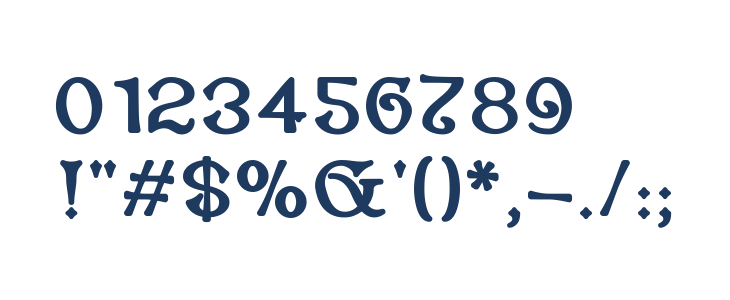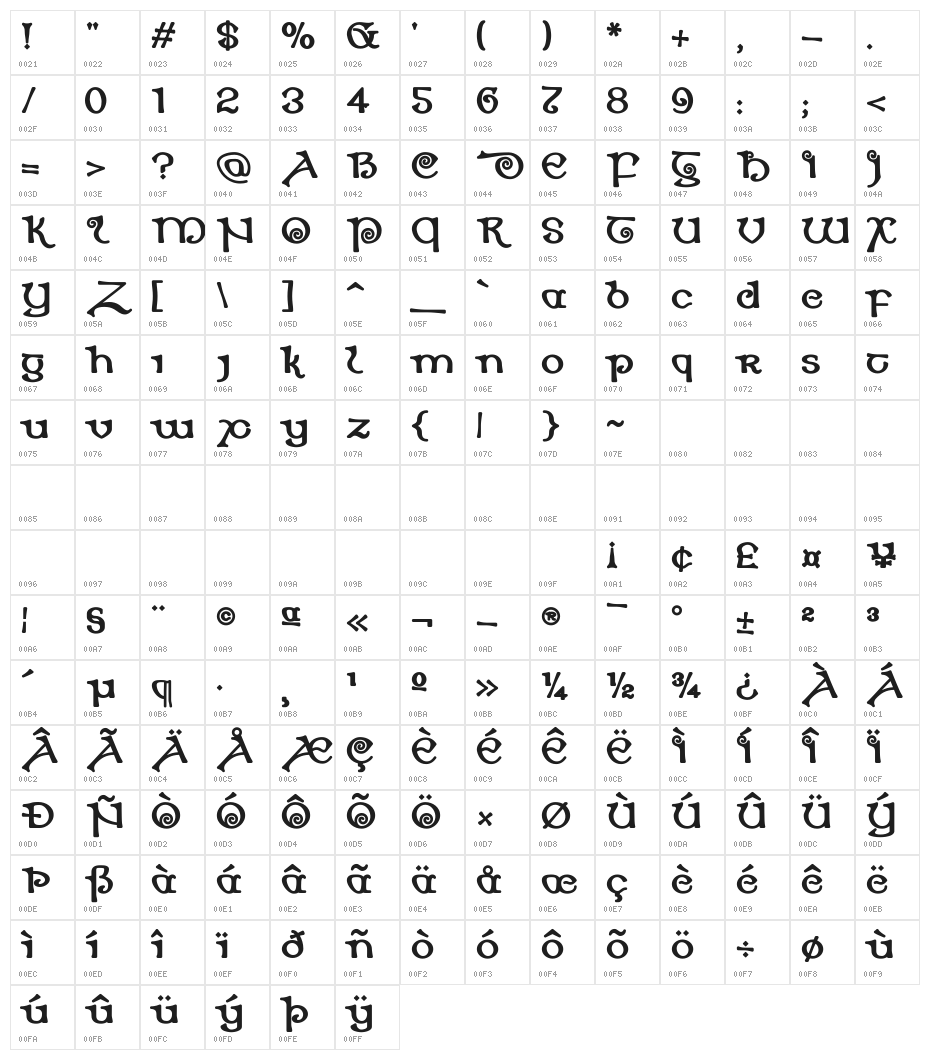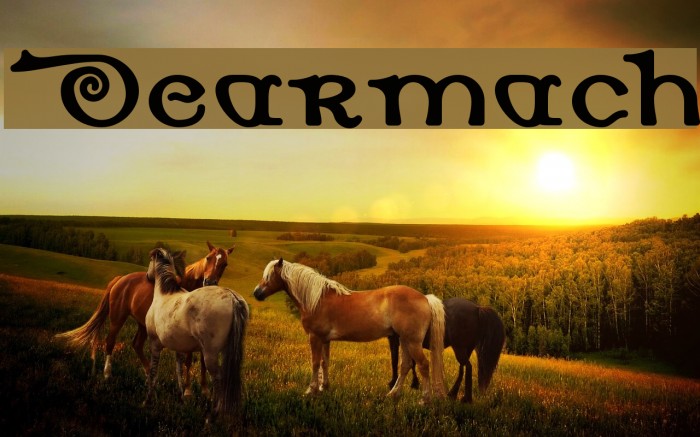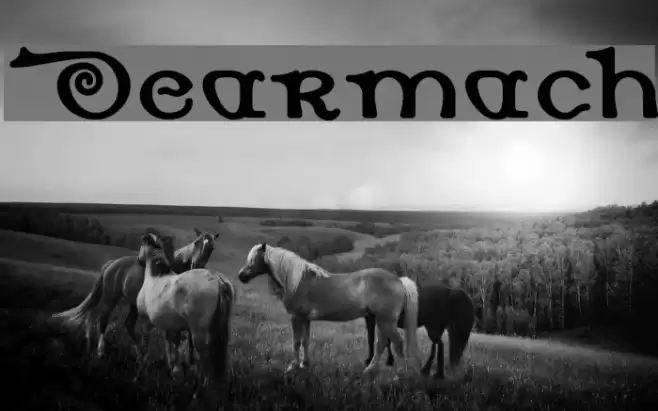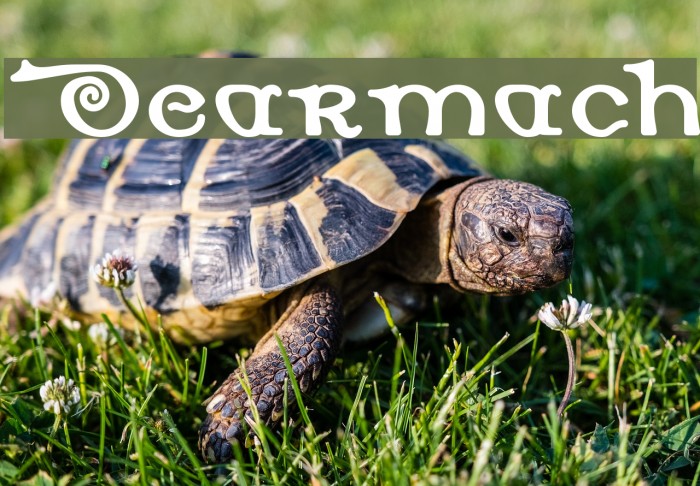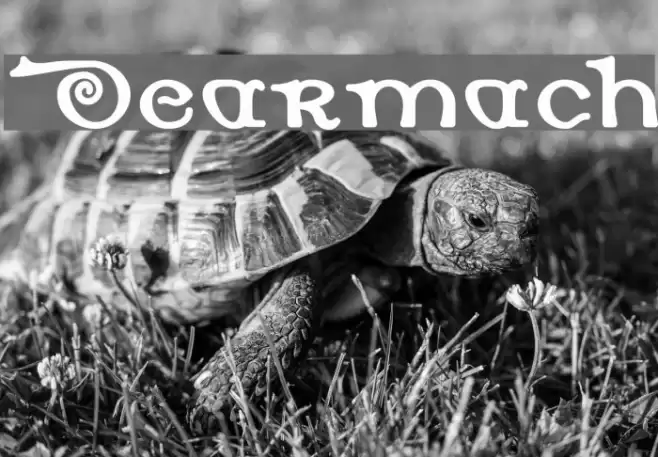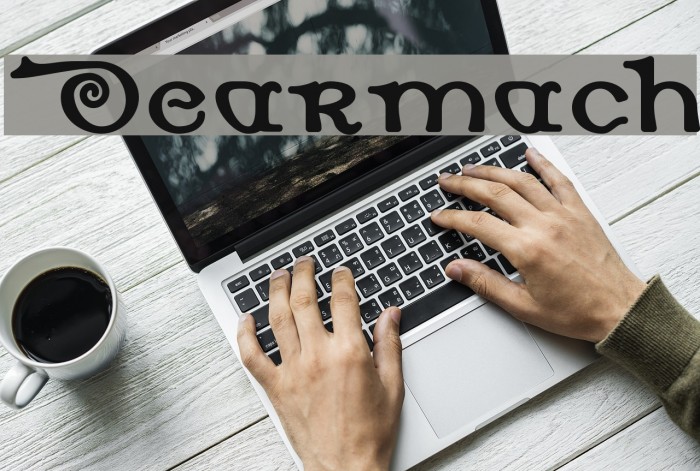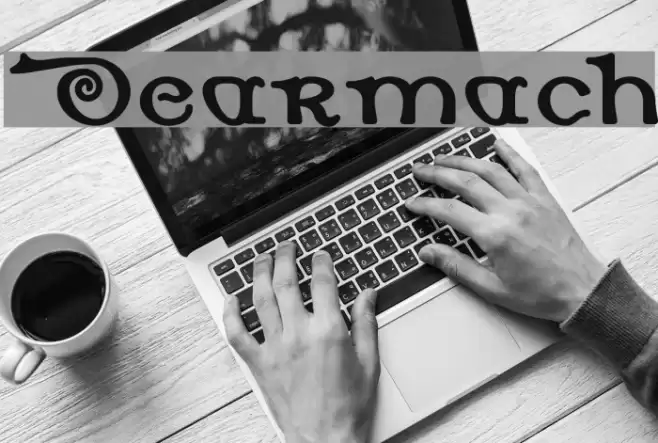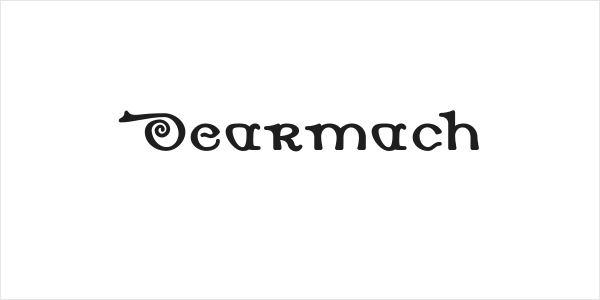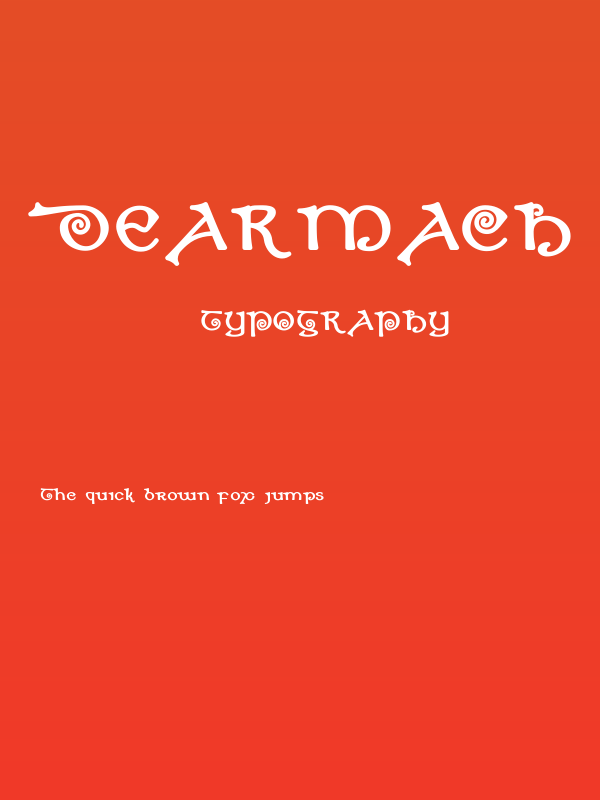
Dearmach Font
Dearmach Description
This font features a whimsical and playful design with a unique twist on traditional letterforms. The characters exhibit a decorative style with curly and swirly elements, giving it a lively and dynamic appearance. The uppercase letters are particularly ornate, with some incorporating spiral motifs, while the lowercase letters maintain a more straightforward yet still playful design. The numerals and special characters are consistent with the overall theme, adding to its cohesive look. This font is ideal for projects that require a touch of creativity and fun.
| Proposed Projects | Perfect for children's books, playful branding, party invitations, and creative posters. |